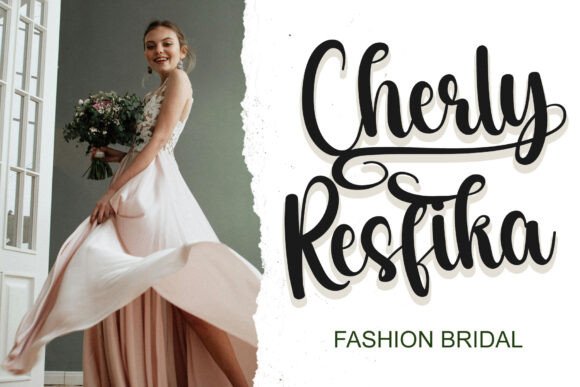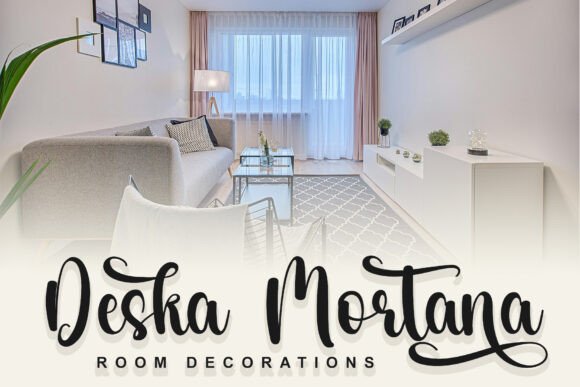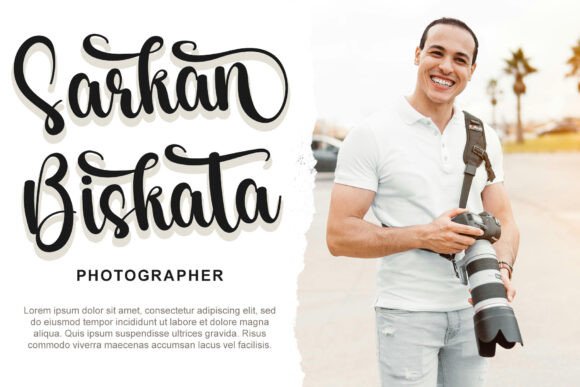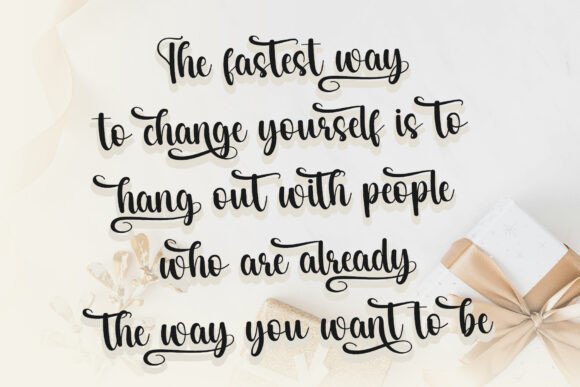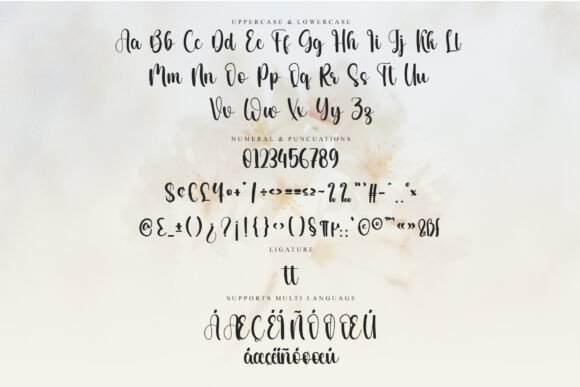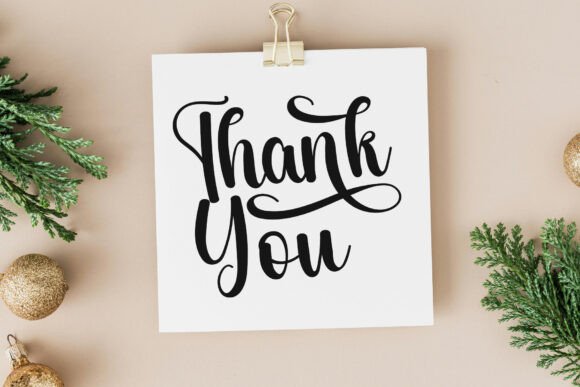
Introduction to Family Reunion Font
Family Reunion is a magical handwritten font carefully created to give a touch of elegance to your designs.
Key Features of Family Reunion Font